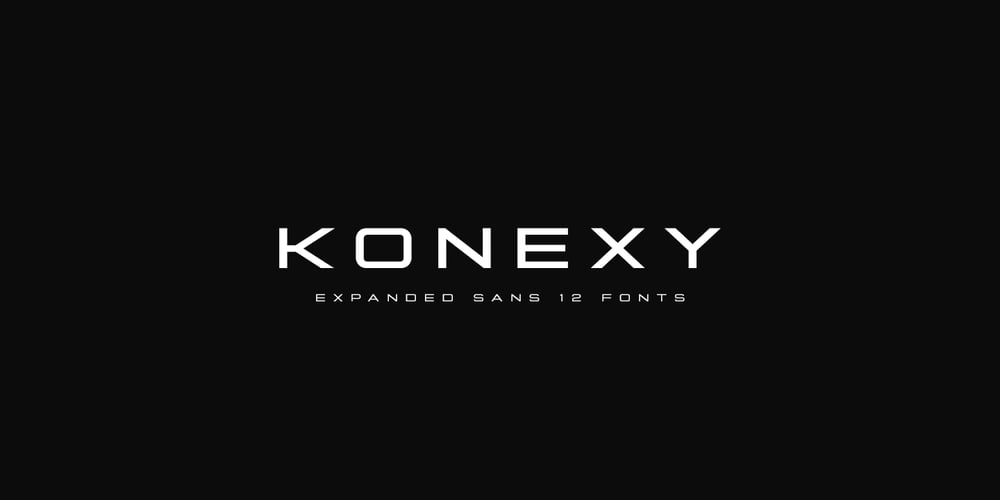
Konexy
Konexy font
Konexy Font Family was designed by Mukhlis Muhammad and published by Variatype. Konexy contains 12 styles and family package options. Konexy is inspired by the trends of technology, automotive, and sports nowadays. We crafted this font for your design project. It contains more than 300 glyphs and rich in stylistic alternates. Support multilanguage and you can easily create a cool logo, branding, and promotion with this font. Get it now!